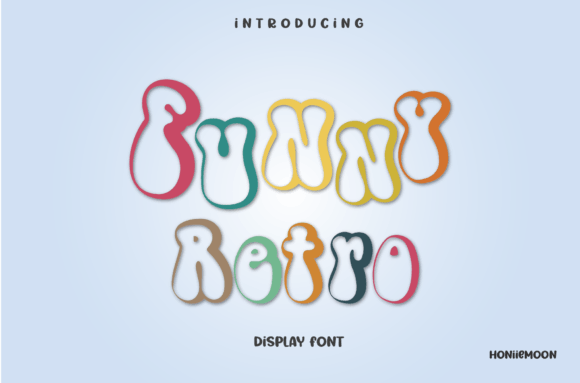
Step into a world of playful designs and vibrant typography with Funny Retro Font, a creation of Honiiemoon that's sure to make your designs pop. This display font is a captivating blend of cute and jolly, adding a touch of whimsy to every project.
With its bold and colorful characters, Funny Retro Font demands attention, transforming your designs into eye-catching masterpieces. Whether you're creating a clothing line that exudes personality, designing playful invitations, or crafting unique social media posts, this font will elevate your creations.
Imagine your clothing line adorned with the quirky charm of Funny Retro Font, where each T-shirt, hoodie, or accessory speaks volumes about your brand's playful spirit. Its bold strokes and cheerful curves will make your designs stand out, inviting customers to embrace the joy of self-expression.
Envision invitations that burst with merriment, thanks to the infectious energy of Funny Retro Font. Its playful characters will set the tone for a joyous celebration, whether it's a birthday party, baby shower, or any special occasion. Your guests will be delighted by the font's infectious charm, creating a sense of anticipation for the event itself.
Harness the power of Funny Retro Font to create social media posts that capture hearts and generate buzz. Its vibrant colors and whimsical style will make your posts stand out in the crowded digital landscape. Your audience will be drawn to the font's magnetic pull, eager to engage with your content and share it with their networks.
With Funny Retro Font, your imagination is the only limit. It's the perfect font for adding a touch of whimsy to logos, posters, flyers, and any other creative project you can dream up. Its versatility knows no bounds, making it the go-to choice for designers seeking to infuse their work with a sense of fun and lightheartedness.